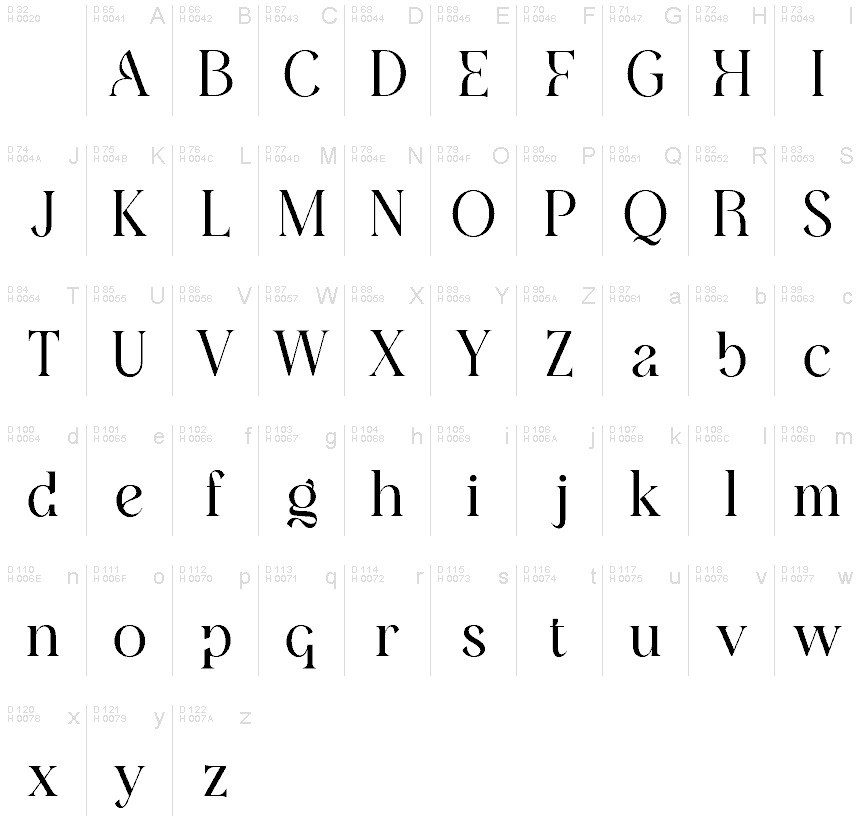
CS Hasten Regular Demo
CS Hasten font by Craft Supply Co. reflects a sleek, elegant appearance that has the beauty of modern serifs and its usual professional vibe. Even though it carries a slight twist on classic fonts, its overall impressive style can be attributed to a perfect proportion and balance in both thick and thin strokes of glyphs.
Easily deliver your desired sophisticated atmosphere with this exquisite free serif font in branding projects for fashion or food labels and logotypes. You can also use it perfectly well for magazine cover designs, advertising posters, website headers, quotes, prints on clothes or even book covers whether online or offline!